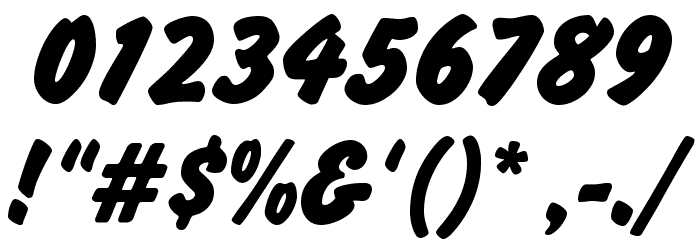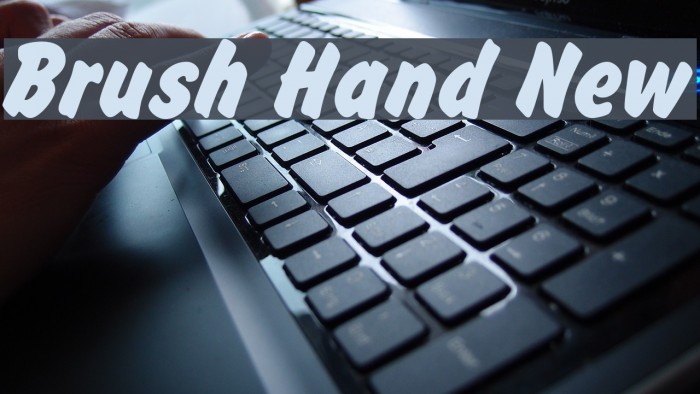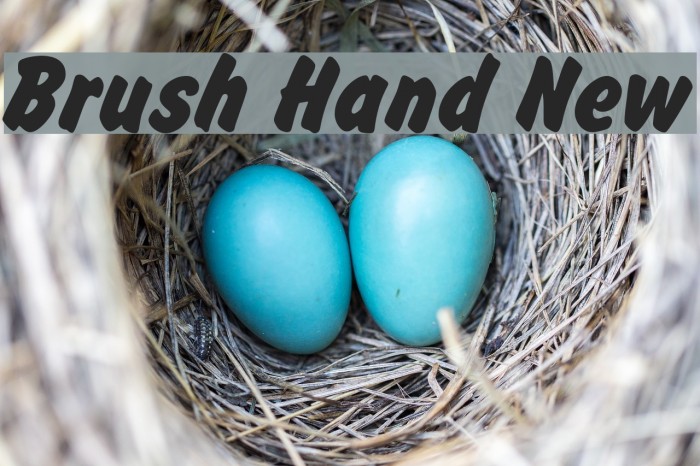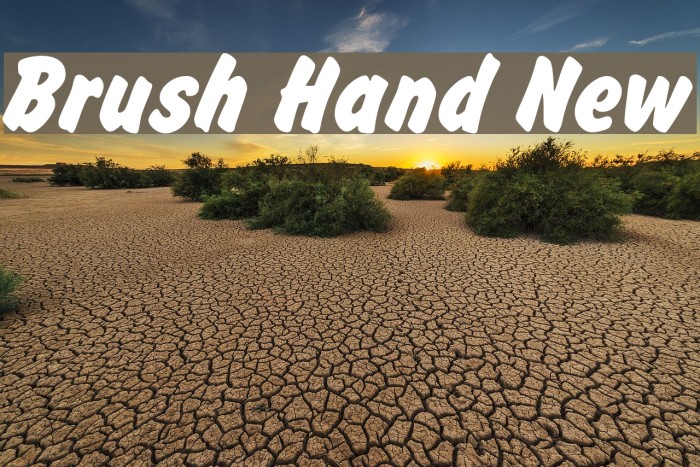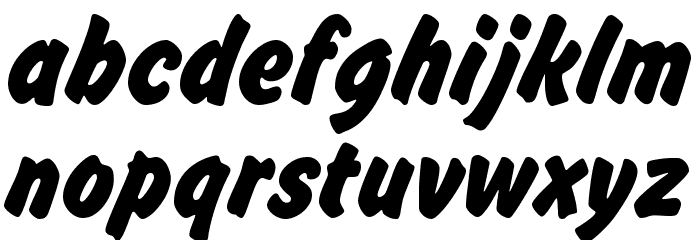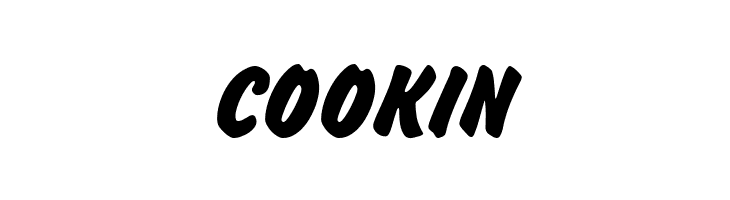
Brush Hand New Font
Brush Hand New Description
This font features a bold, brush-like style that exudes a sense of energy and dynamism. The letters are crafted with a thick, consistent stroke that mimics the fluidity of handwriting, giving it a personal and artistic touch. The uppercase and lowercase letters maintain a cohesive look, with rounded edges and a slightly slanted orientation that enhances its casual, yet impactful appearance. The numbers and special characters follow the same design principles, ensuring uniformity across all elements. This font is ideal for projects that require a lively and expressive typeface.
A bold, brush-style font with a dynamic and artistic flair from Uncategorized fonts.
- Proposed Projects: Ideal for branding, posters, social media graphics, and creative projects that require a personal touch.